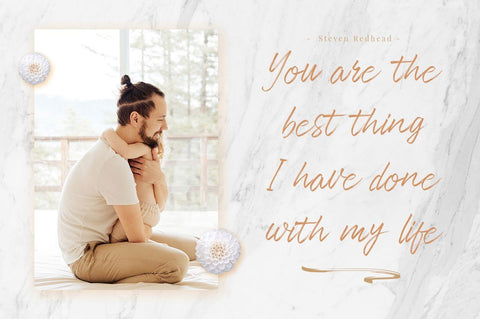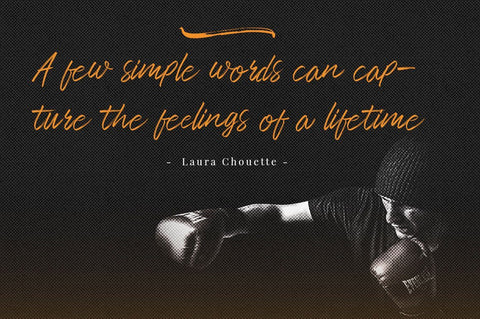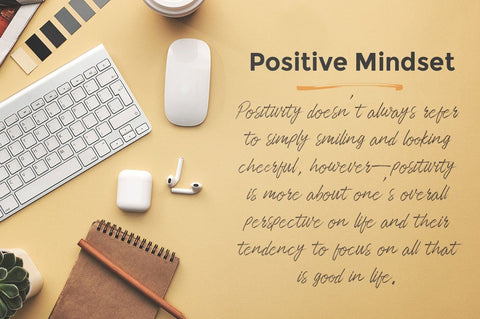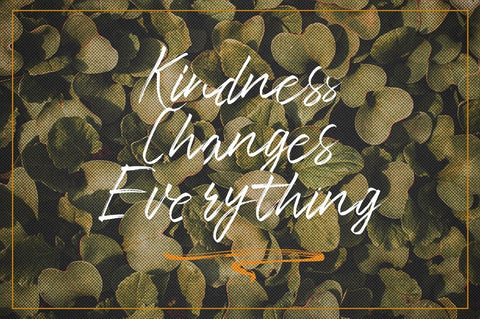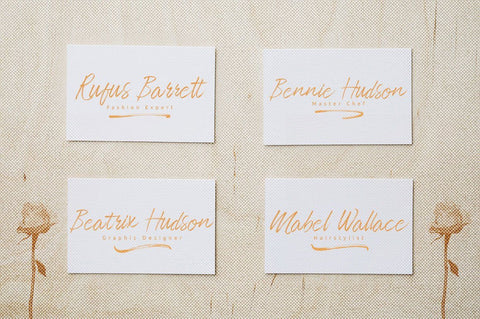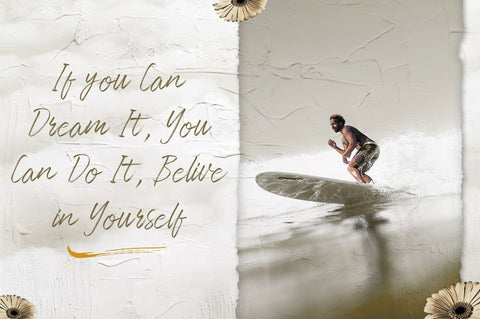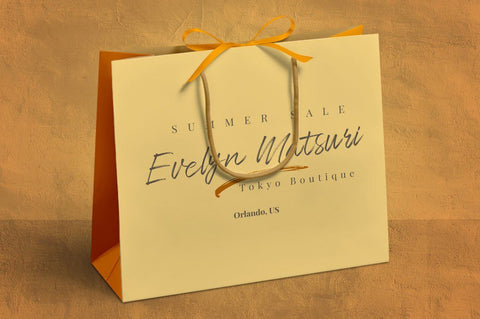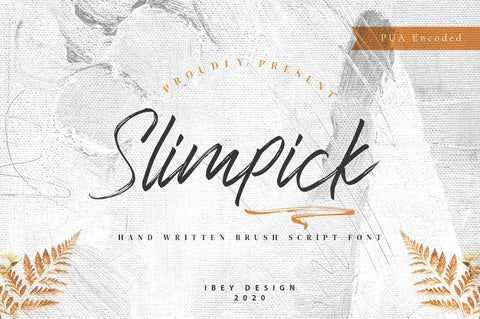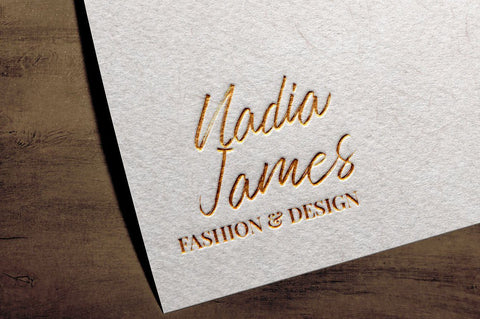
Slimpick - Brush Stroke Font
Slimpick Brush Stroke Font results out of a stunning pairing of a brush pen and pencil that makes it look incredibly endearing and authentic. Use this gorgeous and unique this handwritten font to bring any DIY project to life!